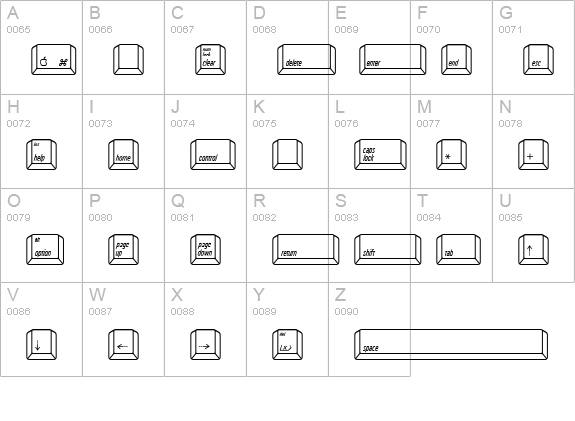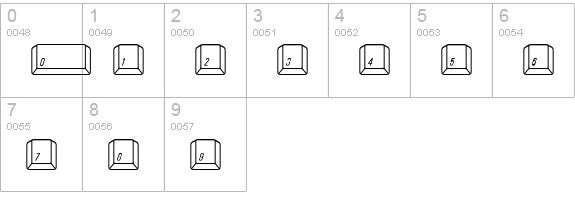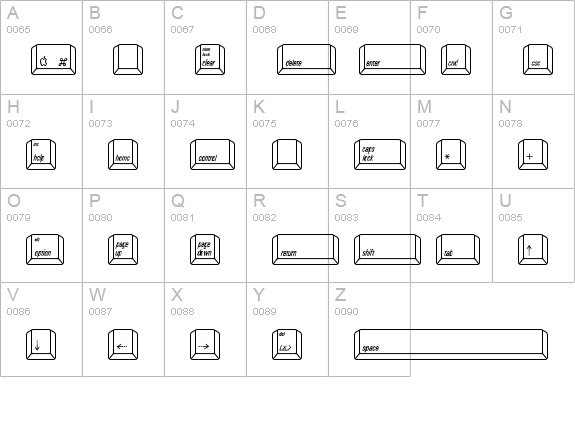
Qwerty Mac Font Details
Introducing Qwerty Mac, a stunning and versatile font that is guaranteed to bring a touch of elegance to your designs. With its unique blend of classic and modern elements, Qwerty Mac effortlessly captures attention and leaves a lasting impression. This font is meticulously crafted with utmost precision, ensuring that each character is perfectly balanced and visually appealing. The smooth curves, clean lines, and impeccable spacing make Qwerty Mac a true standout in the world of typography. Qwerty Mac is not only visually appealing, but it is also incredibly versatile. Whether you're designing a logo, creating a poster, or working on a website, this font will seamlessly adapt to any project, elevating your design to new heights. One of the best features of Qwerty Mac is that it is completely free! Yes, you read that right. This exceptional font is freely available to download at FontsMarket.com. Now you can enhance your designs without having to worry about any additional costs. Downloading Qwerty Mac from FontsMarket.com is a breeze. Simply visit the website, search for Qwerty Mac, and with just a few clicks, this remarkable font will be yours to use in all your creative endeavors. The user-friendly interface of FontsMarket.com makes it easy for both beginners and experts to find and download fonts quickly and effortlessly. So why wait? Get your hands on Qwerty Mac today and experience the power of this incredible font. Whether you're a graphic designer, a marketer, or simply someone who appreciates beautiful typography, Qwerty Mac is a must-have in your font collection. Start creating stunning designs that will leave a lasting impression with Qwerty Mac's elegance and versatility. Don't miss out on this incredible opportunity to enhance your designs for free at FontsMarket.com.